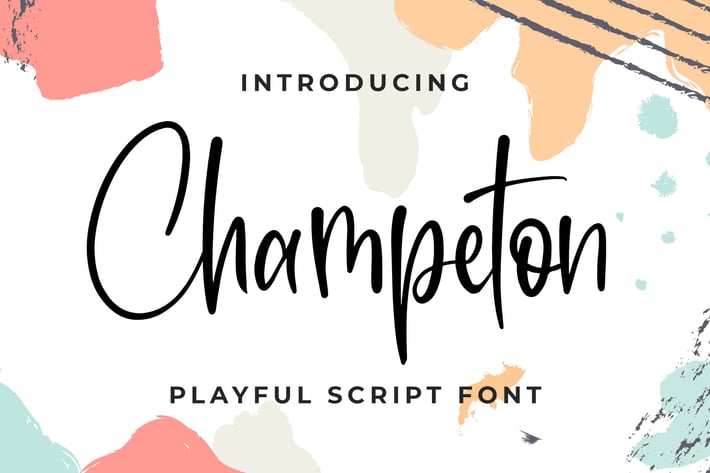
Champeton - Playful Script Font
Introducing of our new product the name is Champeton Playful Script Font. Champeton inspired by Beauty signature style this font is a fun theme very good for signature, poster, fashion, wedding, branding etc
MULTILINGUAL ACCENT :
ŽžŠŒšŸÀÁÂÃÄÅÆÇÈÉÊËÌÍÎÏÐŁÑÒÓÔÕÖØÙÚÛÜÝßàáâãäåæçèéêëìíîïłñòóôõöøùúûüýÿ